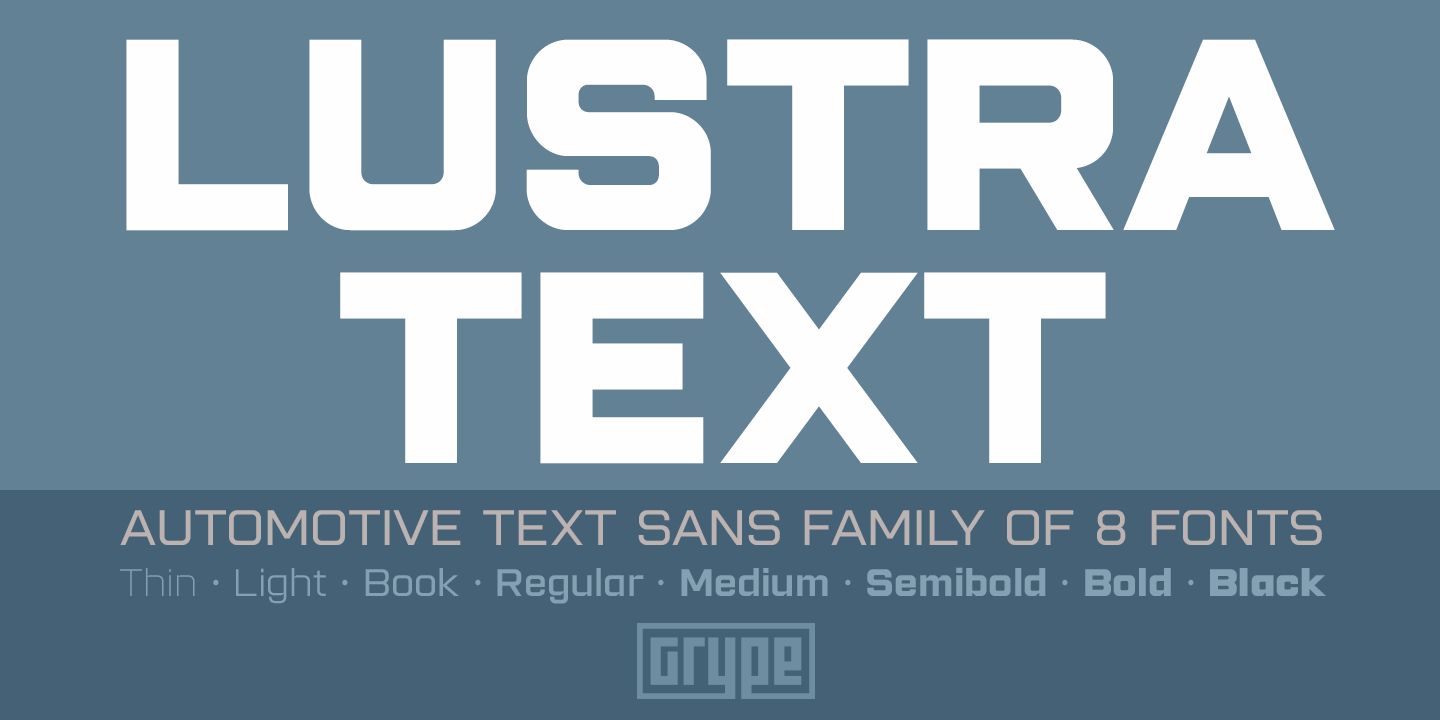
Lustra Text Font is perfect for premium editorial layouts, sophisticated magazine designs, elegant book publishing, high-end corporate communications, luxury brand documentation, refined academic publications, polished professional reports, cultured literary journals, distinguished cultural materials, and prestigious institutional correspondence.
Lustra Text Font is exciting because it achieves the perfect synthesis of readability and refinement through its luminous, polished letterforms that enhance text clarity while maintaining sophisticated elegance, creating reading experiences that feel both effortless and distinguished.
Lustra Text Font family includes Regular, Bold, Light, Medium, Italic, Condensed, Extended, and Display variations, offering designers a complete refined toolkit to create lustrous visual communications that elevate textual content while maintaining superior reading comfort and typographic excellence.
Lustra Text Font embodies the highest standards of typographic refinement and reading optimization, making it an indispensable tool for publishers, editors, and organizations that prioritize both textual clarity and aesthetic sophistication in their communications. This luminous typeface brings editorial excellence to any design project, whether you're developing premium publishing materials, creating corporate documentation, or designing educational resources that require extended reading comfort. The expertly optimized character spacing of Lustra Text Font Free Download ensures superior legibility while maintaining the polished aesthetic that appeals to discerning readers who appreciate both intellectual content and typographic craftsmanship in their reading experiences.
Publishing industry professionals consistently choose Lustra Text Font for literary magazines, academic journals, and premium books because of its ability to enhance reading comprehension while maintaining visual elegance throughout long-form content. The font's refined appearance makes it particularly effective for targeting educated audiences and creating reading experiences that feel both comfortable and culturally sophisticated.
Lustra Text Font excels in corporate and institutional environments where professional credibility and reading comfort are equally important. Financial institutions, consulting firms, and academic organizations rely on this font to create documents that communicate authority while ensuring optimal readability for complex information and detailed analysis.
The cultural and educational sectors have embraced Lustra Text Font for museums, universities, and cultural foundations. Its luminous visual character helps institutions create materials that honor intellectual traditions while maintaining contemporary accessibility, appealing to audiences who value both scholarly depth and refined presentation in their cultural and educational consumption.